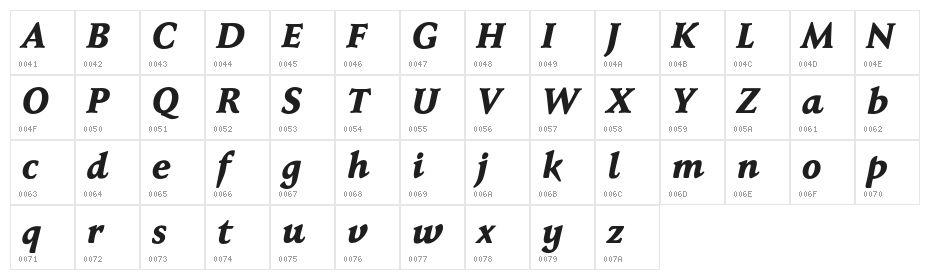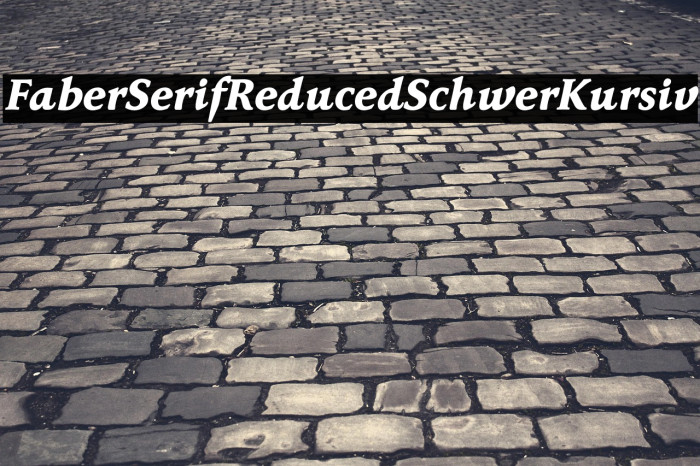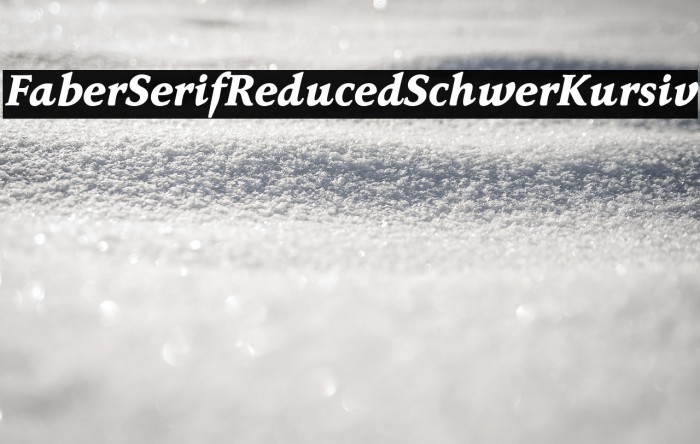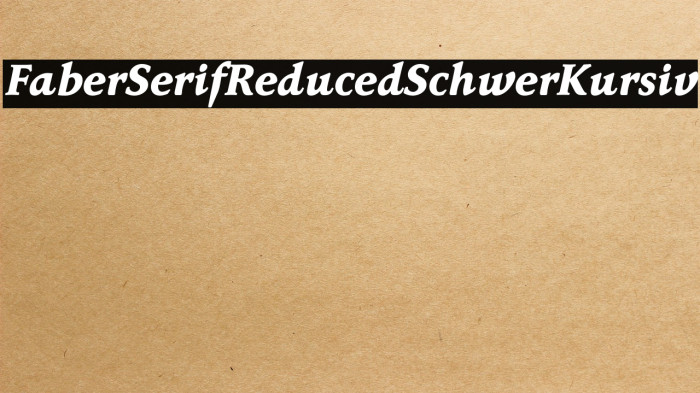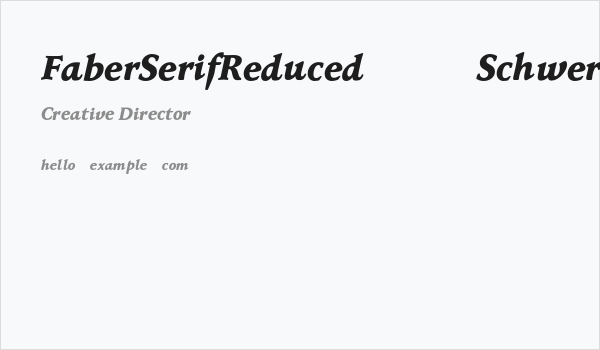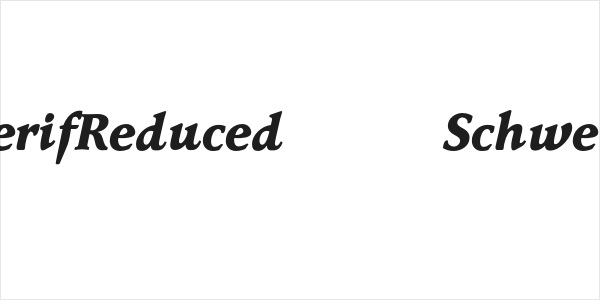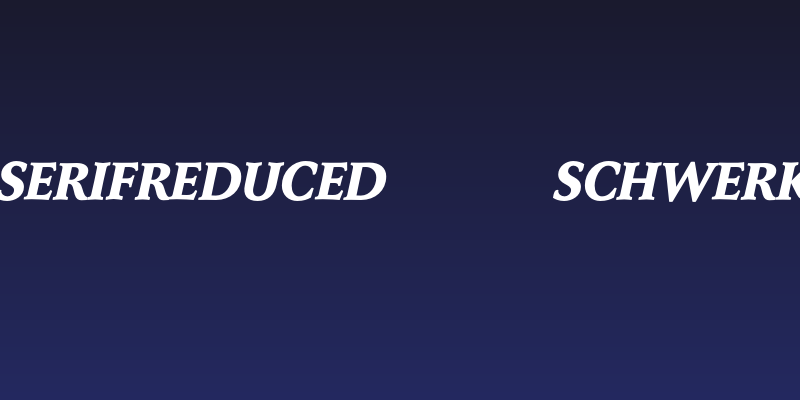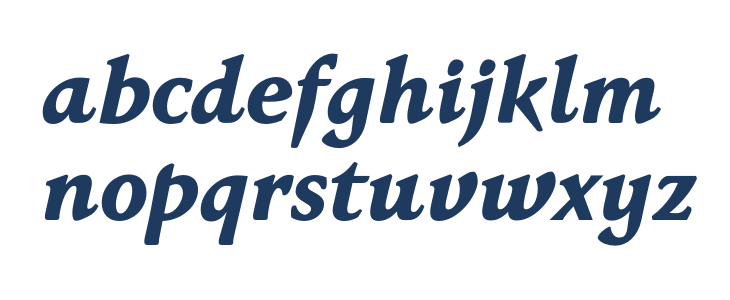
FaberSerifReduced-86SchwerKursiv Font
FaberSerifReduced-86SchwerKursiv Description
This font features a classic serif style with a distinct italic slant, giving it an elegant and sophisticated appearance. The characters are bold and well-defined, with a moderate contrast between thick and thin strokes. The serifs are pronounced, adding a touch of tradition and formality. The overall design is balanced, making it suitable for a variety of formal and professional applications. The spacing between characters is normal, ensuring readability while maintaining a cohesive look.
| Proposed Projects | Ideal for formal invitations, book covers, editorial design, and branding materials that require a touch of elegance and sophistication. |